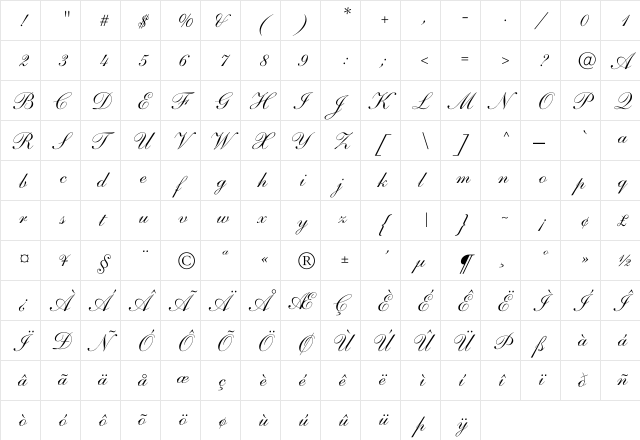
Shelley-AndanteScript Regular Font Preview
Shelley-AndanteScript Regular
Design Context for Shelley-AndanteScript Typeface
Shelley-AndanteScript flows with the natural rhythm of handwritten lettering, making it ideal for designs that call for warmth and personal expression.
Font Pairing: Combine Shelley-AndanteScript with a simple geometric sans for maximum contrast — the tension between flowing curves and clean structure is a classic typographic pairing.
Pro Tip: Pair Shelley-AndanteScript with a clean sans-serif for supporting text. The contrast between fluid script and geometric structure creates an elegant typographic hierarchy.